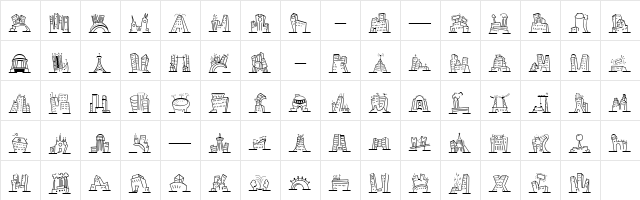
Mini Pics Naked City Day
Style: Naked City Day
Design Context for Mini Pics
Mini Pics is a composed and adaptable typeface that performs quietly and consistently across a wide range of design contexts.